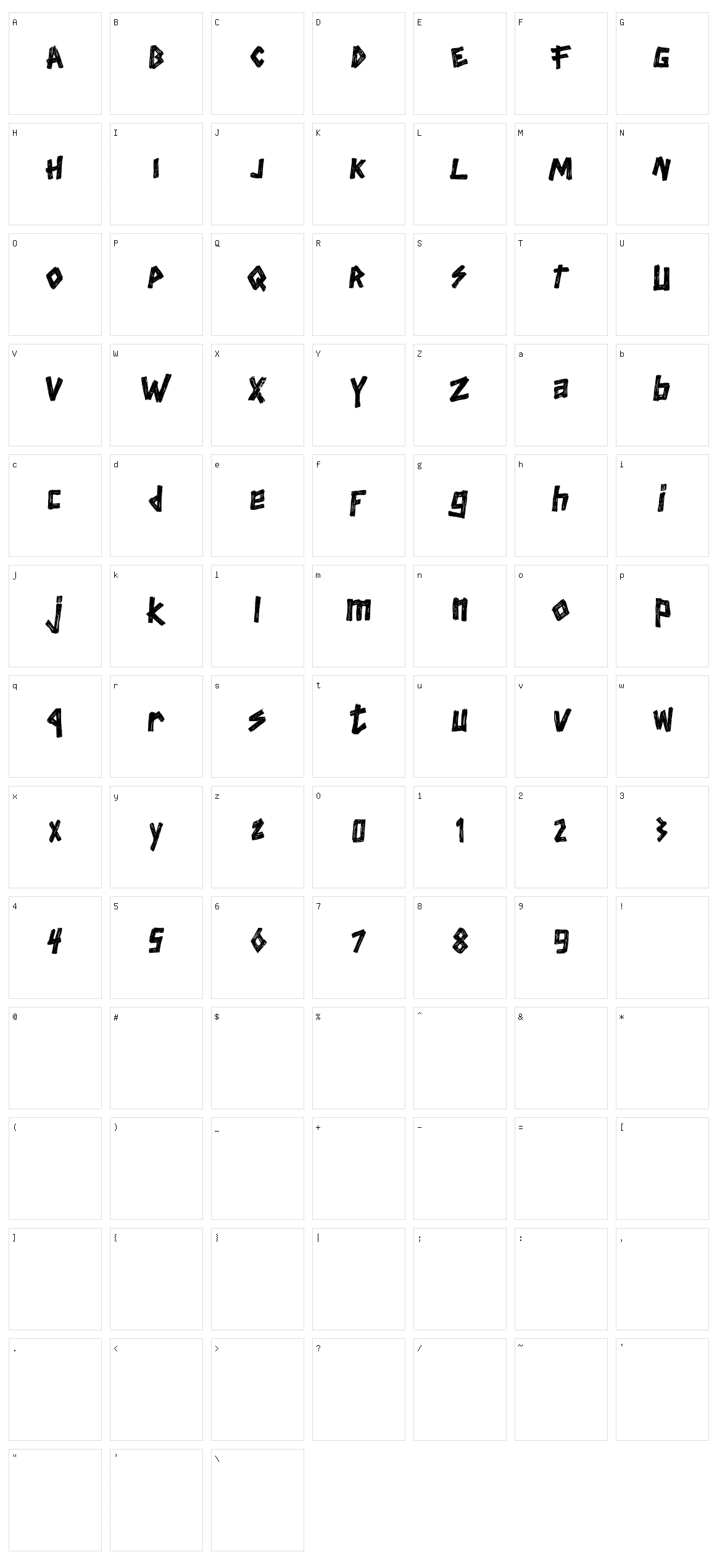
The free font Borude is carefully designed by InspiraType, showcasing a thoughtful balance of creativity and usability and falls under the Trash font style. When you download the ZIP file, it contains only 175 KB of font files, making it lightweight and quick to download. Please review the license details below to understand permitted usage and distribution rights. If license information is not available, we recommend using this font for personal projects only or contacting the author directly for commercial usage permissions.